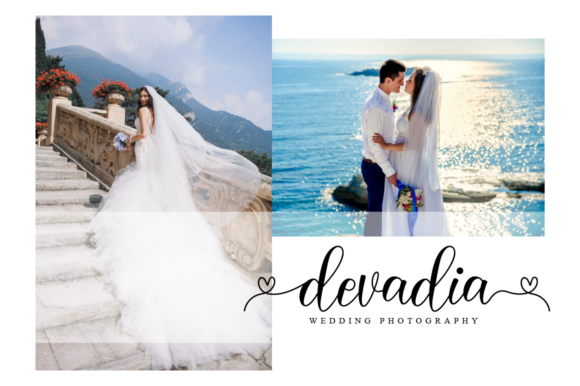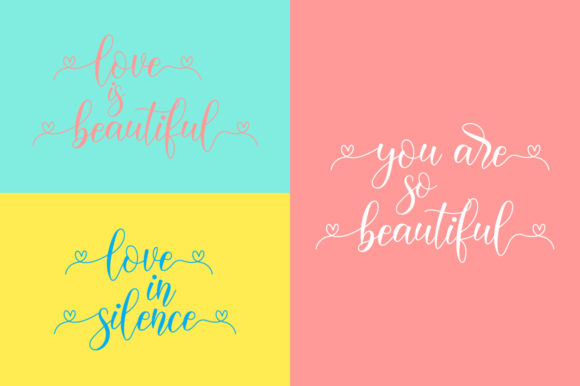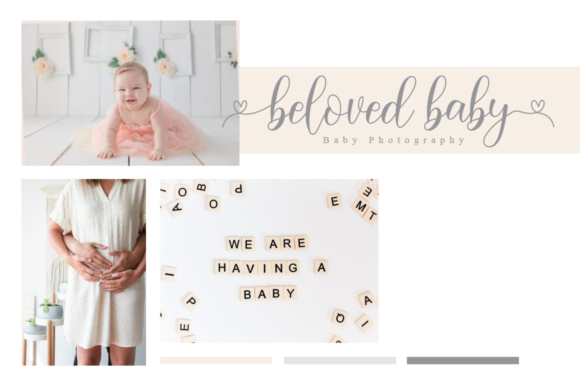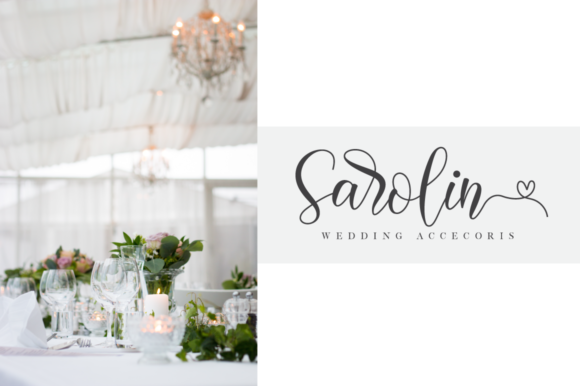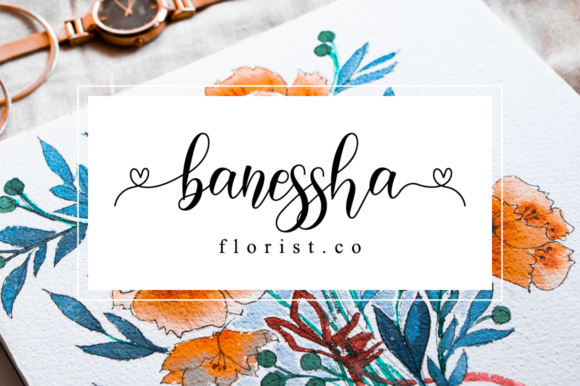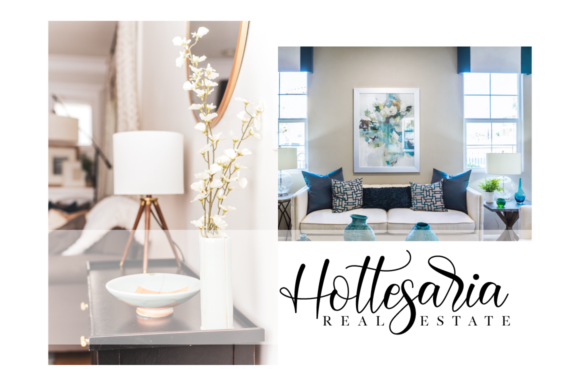
Harelia Script Font: Elevate Your Designs with Elegance and Authenticity
Are you on the hunt for a font that exudes both class and authenticity? Look no further than the Harelia Script Font. This stunning handwritten font boasts a unique feel that is sure to capture the hearts of designers and crafters alike. With its organic swashes and elegant strokes, Harelia is the perfect addition to any project that demands sophistication and style.
The Unique Charm of Harelia Script Font
Harelia is not just another script font; it’s a masterpiece that brings a fresh perspective to the world of typography. Its unique feel is a result of meticulous craftsmanship, blending traditional handwritten elements with modern flair. The font’s organic swashes add a touch of whimsy and elegance, making it perfect for designs that require a personal and bespoke touch.
Key Features of Harelia Script Font
- Classy and Authentic: Harelia strikes the perfect balance between being classy and authentic. It’s sophisticated enough for high-end designs yet retains a genuine, handmade feel.
- Unique Feel: The font’s distinctive character sets it apart from more traditional script fonts. Its uniqueness ensures that your designs stand out in a crowded marketplace.
- Organic Swashes: The organic swashes in Harelia add a dynamic and artistic touch to your designs. They can be used to create beautiful headings, signatures, and more.
- Versatile: Whether you’re working on a wedding invitation, a brand logo, or a packaging design, Harelia adapts seamlessly to various design needs.
Why Designers and Crafters Love Harelia
Designers and crafters adore Harelia for its versatility and the personal touch it brings to projects. It’s an excellent choice for:
- Wedding and Event Stationery: Add a touch of elegance and romance to wedding invitations, save-the-date cards, and other event stationery.
- Branding and Logos: Create a memorable brand identity with Harelia’s unique and classy appeal.
- Packaging: Elevate your product packaging with a sophisticated and eye-catching design.
- Digital and Print Media: Use Harelia in digital content, such as blog headers, social media graphics, and print materials like brochures and flyers.
How to Use Harelia Script Font Effectively
To make the most of Harelia, consider the following tips:
- Pair with Complementary Fonts: Combine Harelia with simpler fonts for body text to create a harmonious and readable design.
- Experiment with Swashes: Don’t be afraid to get creative with the organic swashes. They can be used to add flair to initials, connect words, or even form decorative borders.
- Adjust and Customize: Take advantage of font variations and adjustable settings to customize Harelia to fit your project’s tone and style.
Harelia Script Font is a game-changer for designers and crafters seeking a classy yet authentic handwritten font. Its unique feel and organic swashes make it an excellent choice for a wide range of design projects. By incorporating Harelia into your work, you’ll not only elevate your designs but also ensure they stand out with elegance and sophistication. So, fall in love with Harelia’s charm and make it your go-to font for your next creative endeavor.